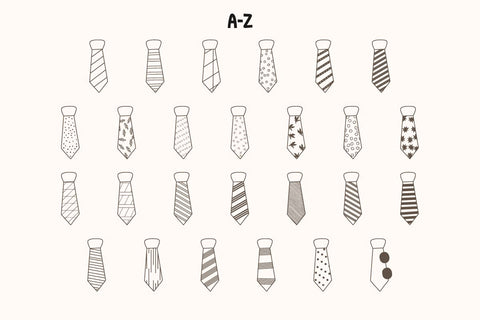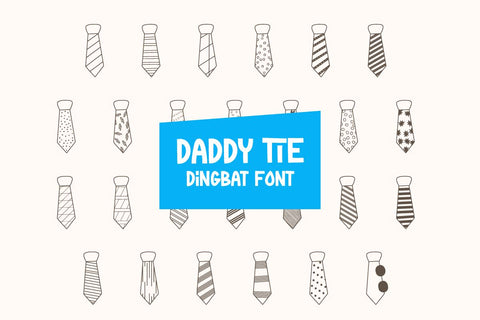
Daddy Tie - Dingbat Font
Daddy Tie is a Dingbat font that contains glyphs for tie shapes in a cute doodle style. This font is inspired by Father's Day theme